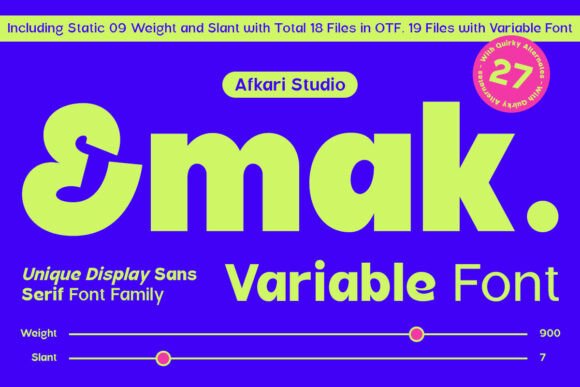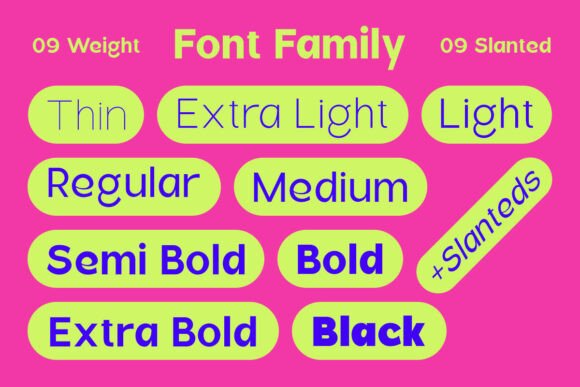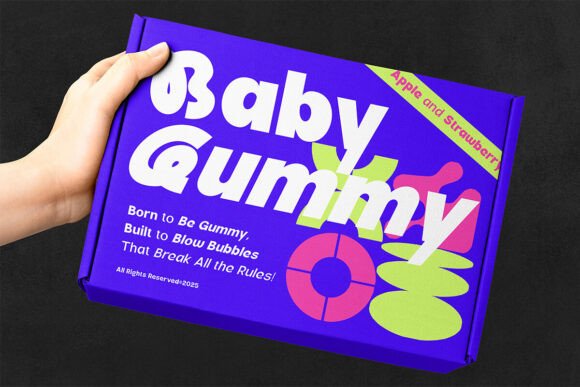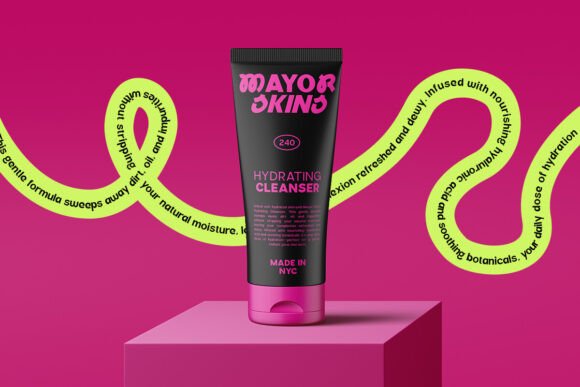
Emak Font: Bold Sans Serif for Modern Branding & Logo Design
About the Emak Font
Get ready to be inspired by Emak Font, a fresh and dynamic typeface for modern creators. Emak is a bold and versatile sans-serif font family designed for modern and dynamic typography. With 18 weights ranging from Thin to Black, along with Slant styles and a Variable Font option, Emak provides ultimate flexibility for designers. Whether you’re crafting striking headlines, sleek branding, or engaging digital content, this typeface delivers both power and precision.
Emak is designed to be both functional and expressive. Its clean, modern lines make it a great choice for professional branding, while its slanted styles and special alternates allow for more artistic and dynamic typography. This balance makes Emak an excellent option for a wide range of creative fields, including advertising, editorial design, packaging, and digital media.
With a Variable Font feature, Emak provides the freedom to adjust weight and slant in real time, making it a flexible tool for designers who want precise control over their typography. Whether you need ultra-thin elegance or bold, high-impact lettering, Emak delivers seamless adaptability.
Emak Font Usage Examples
Emak Font Example